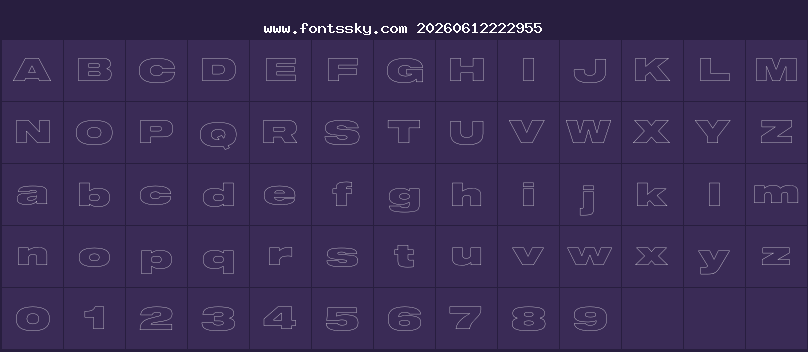
Shapiro 97 Air Extd Preview
• Font Name: Shapiro 97 Air Extd
• Full Font Name: Shapiro 97 Air Extd
• PostScript Name: Shapiro-97AirExtd
• Designer: Oliver Jeschke
• Manufacturer: OGJ Type Design
About Shapiro 97 Air Extd.otf
Shapiro 97 Air Extd.otf is a modern, elegant sans-serif font designed for ultimate readability and visual harmony. Perfect for branding, headlines, web design, and print materials.